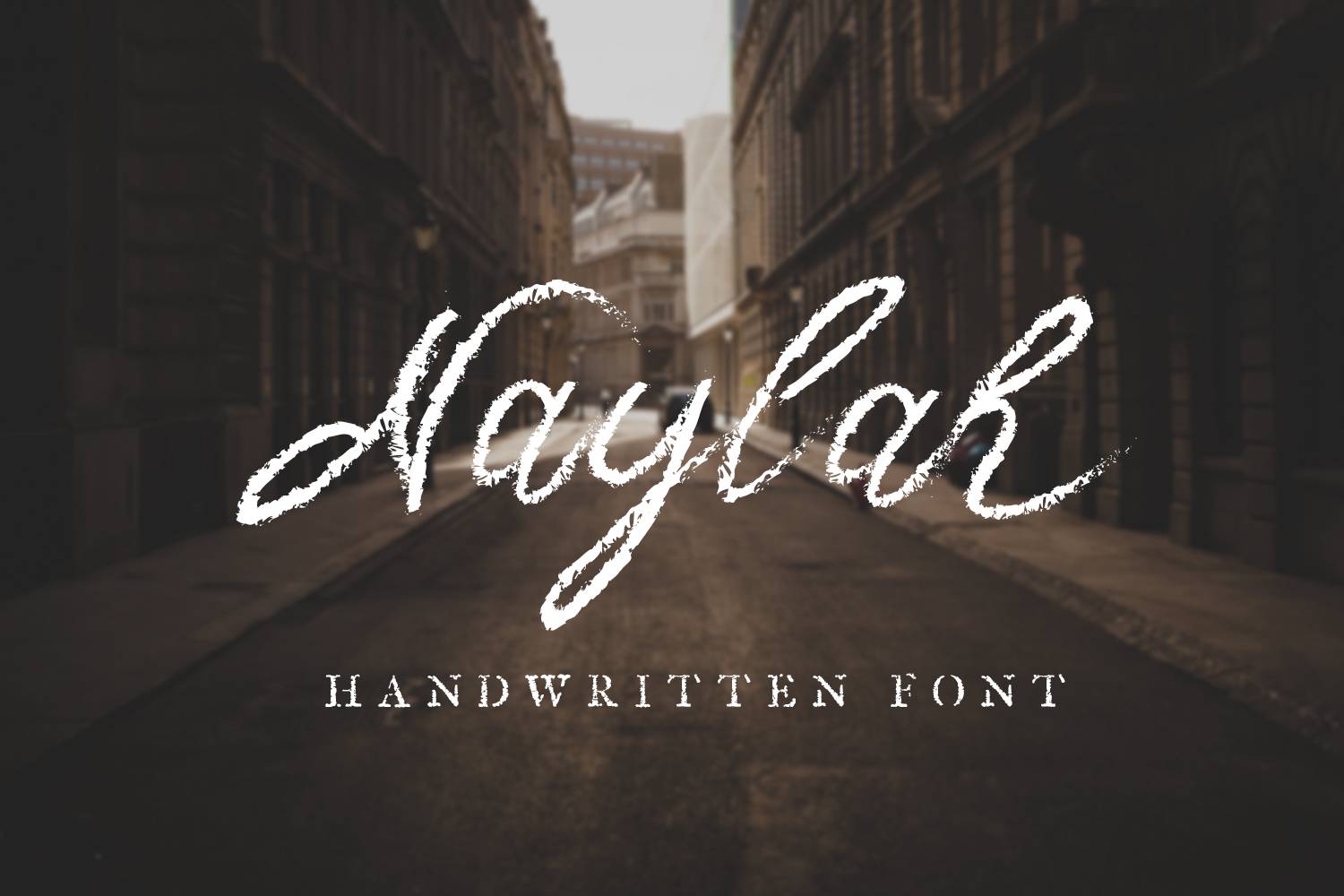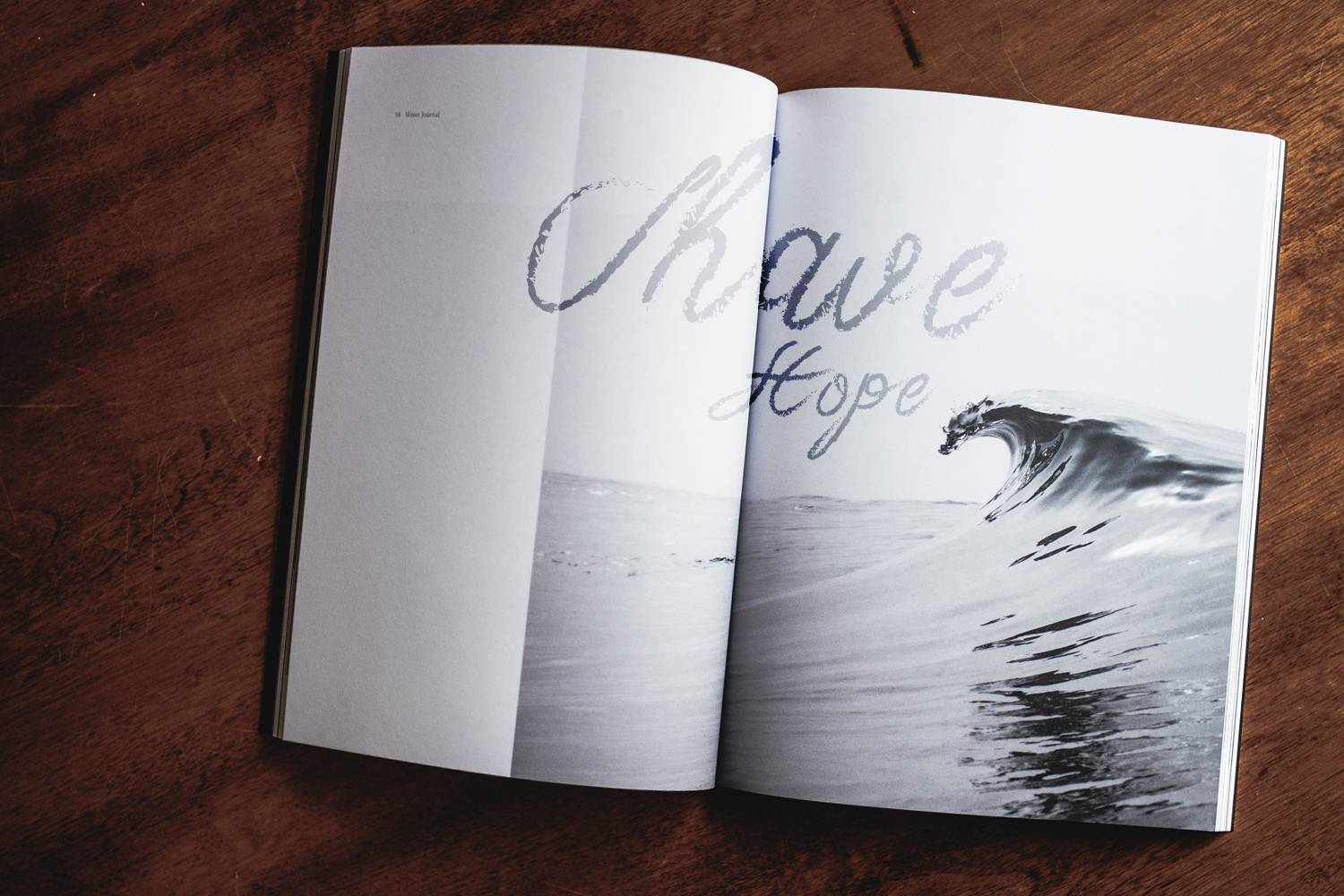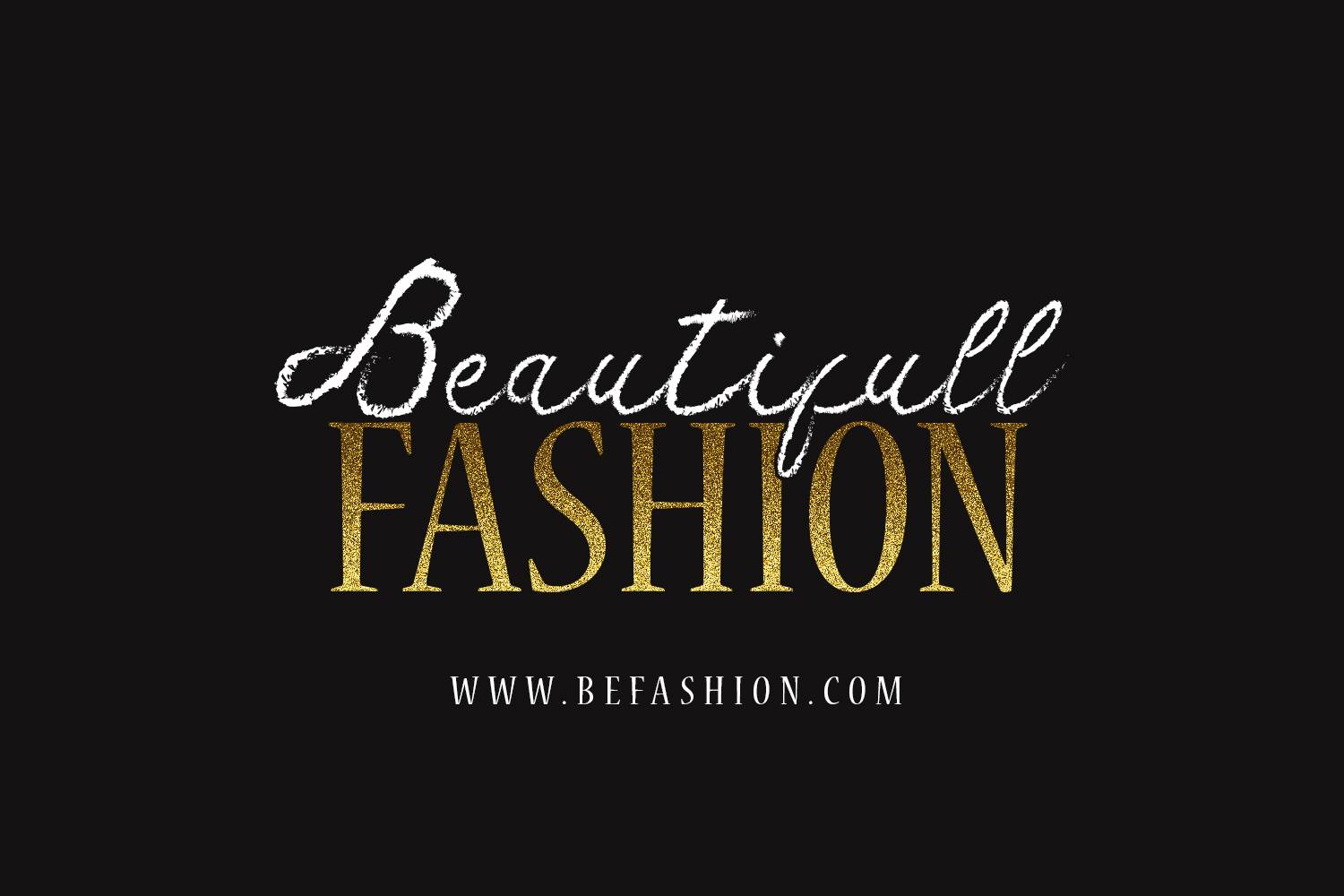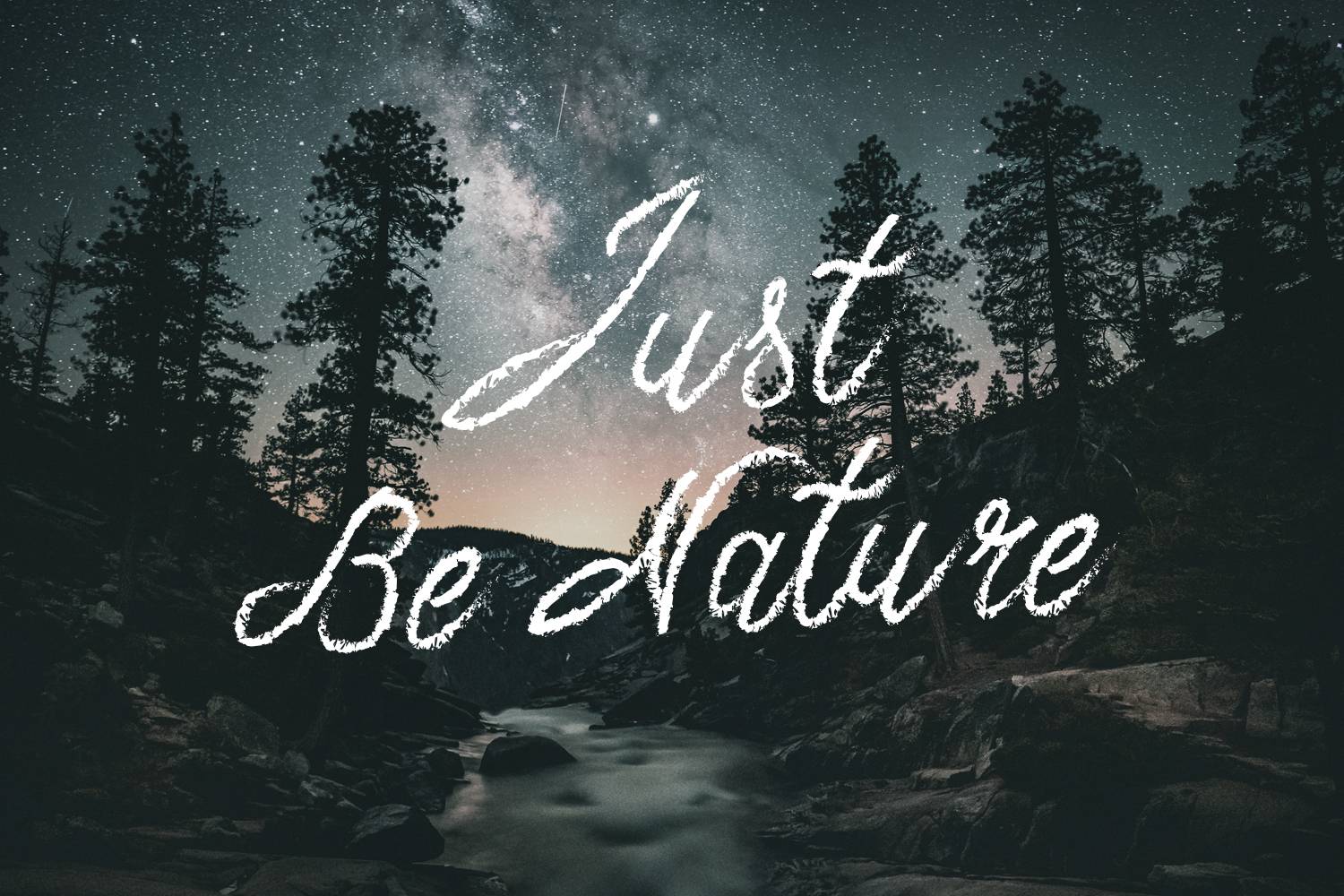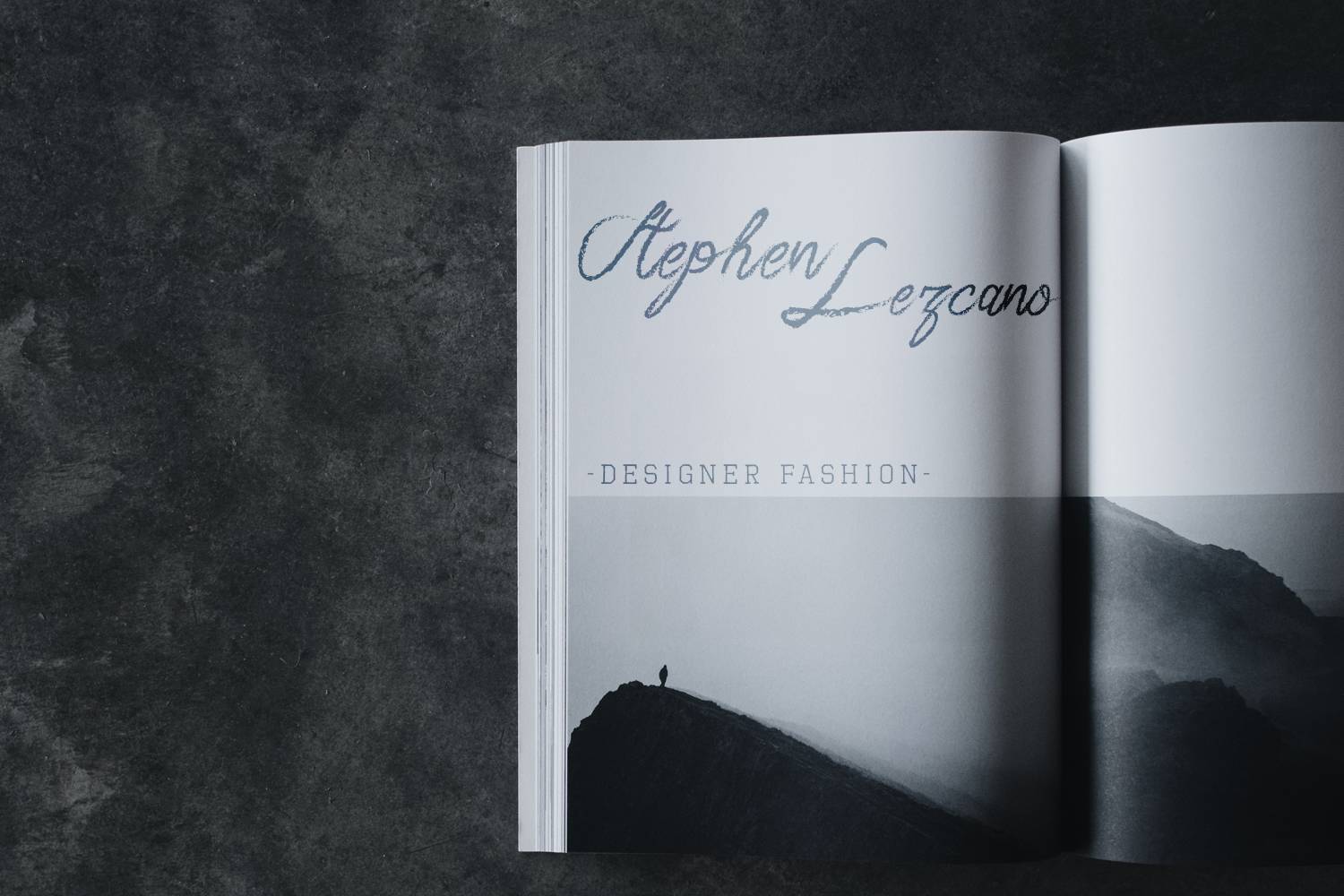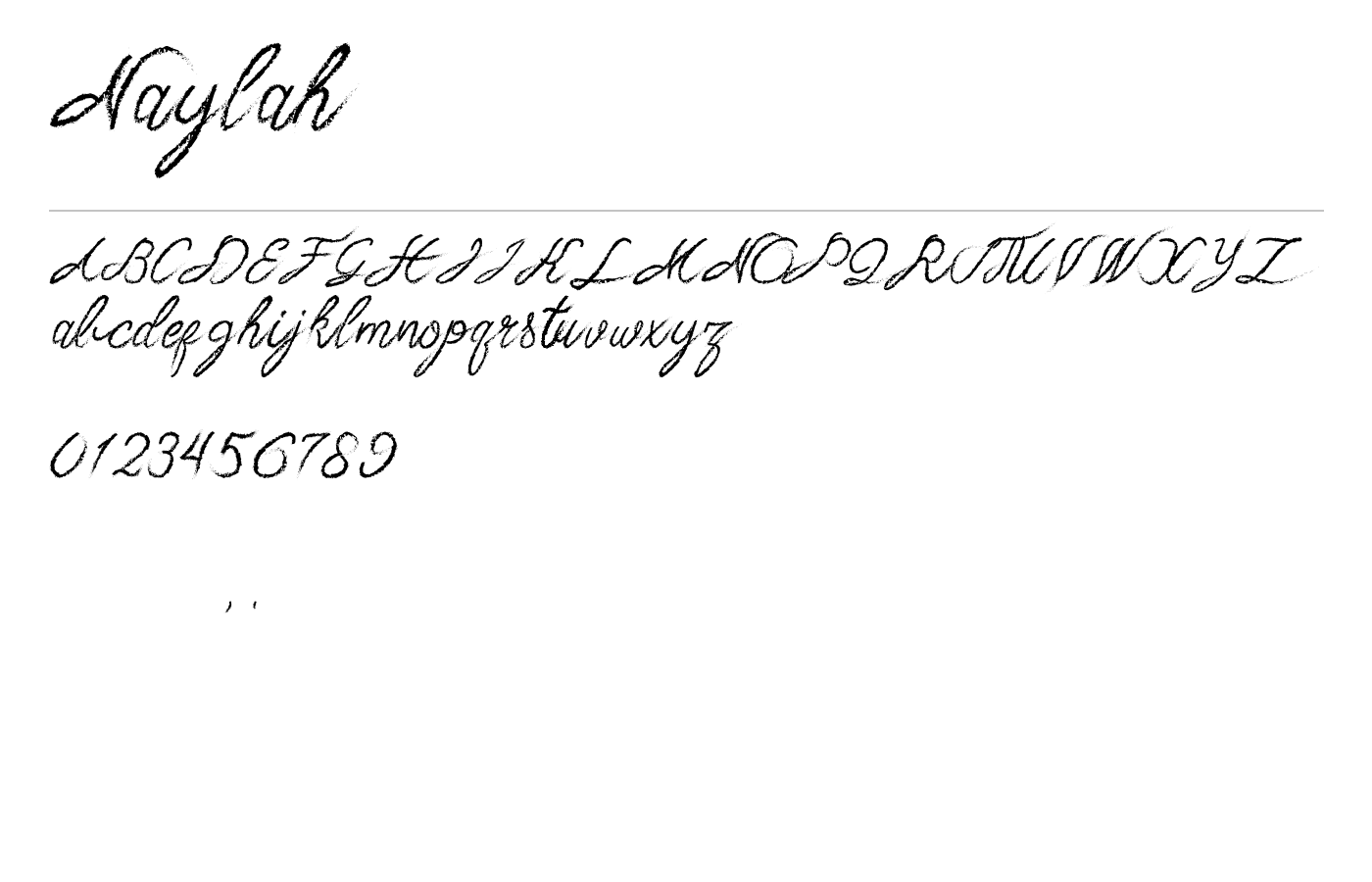
Naylah is a delicate script font that mimics natural handwriting with its flowing, slightly textured strokes and elegant slant. It features a light weight and narrow width, giving it a refined and personal feel perfect for invitations, branding, or editorial designs striving for a graceful, intimate touch. This font shines in creative contexts where a handmade, artistic vibe is desired to communicate warmth and sophistication.
Naylah Font
About Naylah Font
| Font family | Naylah Font |
| Designer | Arendxstd |